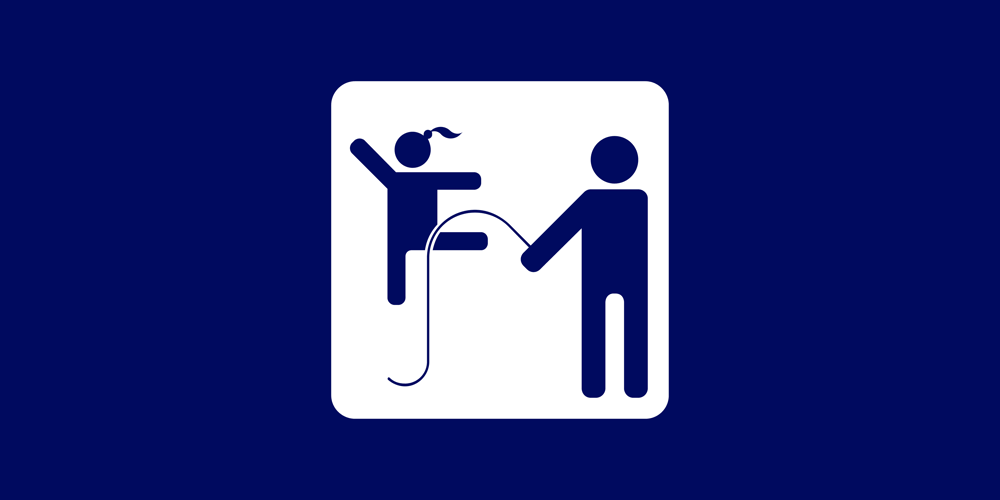
Olympukes
Olympukes font
Olympukes Font Family was designed by Marcus Leis Allion, Jonathan Barnbrook and published by Barnbrook Fonts. Olympukes contains 2 styles and family package options. Olympukes is a collection of 52 icons depicting the true spirit of the Olympics. This pictogram font is offered free for personal use only and will be released on 13th of August, the occasion of the Athens Olympics 2004.